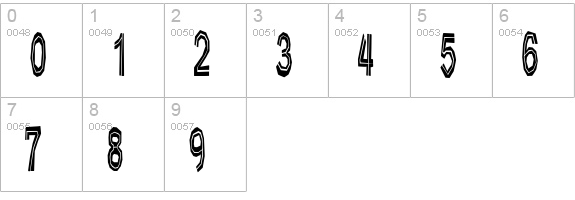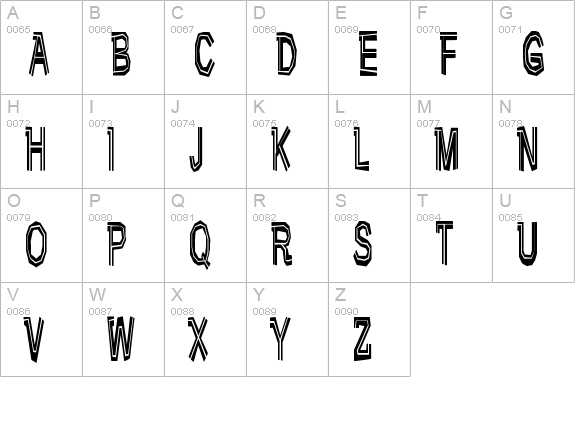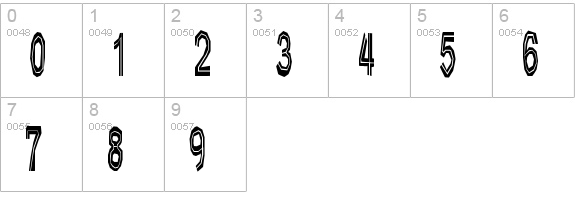
Very bad posture Font Details
Introducing the Very Bad Posture font, a unique and edgy typeface that perfectly captures the essence of unruliness and rebellion. This font is designed for those who dare to break free from the norms and embrace their individuality. With its jagged edges and uneven lines, Very Bad Posture brings a raw and gritty vibe to any design project. Its irregular letterforms convey a sense of nonconformity and defiance, making it the perfect choice for rebellious and unconventional designs. Whether you're working on a poster for a punk rock concert, designing a grungy album cover, or creating a rebellious brand identity, Very Bad Posture will add a touch of rebellion and attitude to your project. What sets Very Bad Posture font apart is not only its striking aesthetic but also its versatility. This font comes in a range of weights and styles, allowing you to experiment and create various looks. From a bold and in-your-face statement to a more subtle and distressed appearance, this font offers endless possibilities. Best of all, Very Bad Posture font is freely available to download at FontsMarket.com. We believe that creativity should not be limited by financial constraints, which is why we offer this unique and captivating font at no cost. Simply visit FontsMarket.com and get your hands on this rebellious typeface to add a dose of edge to your designs. So, if you're ready to break free from the mundane and embrace your inner rebel, Very Bad Posture font is the perfect choice. Download it today and let your creativity run wild.